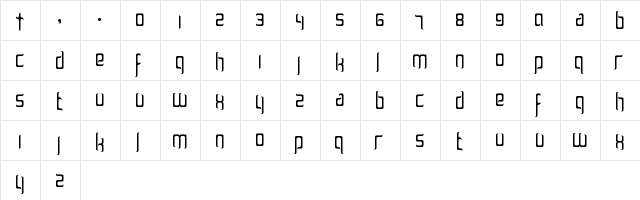
Fairytale Regular
| Designer | Josh Hejka |
Design Context for Fairytale Typeface
Fairytale is a composed and adaptable typeface that performs quietly and consistently across a wide range of design contexts.